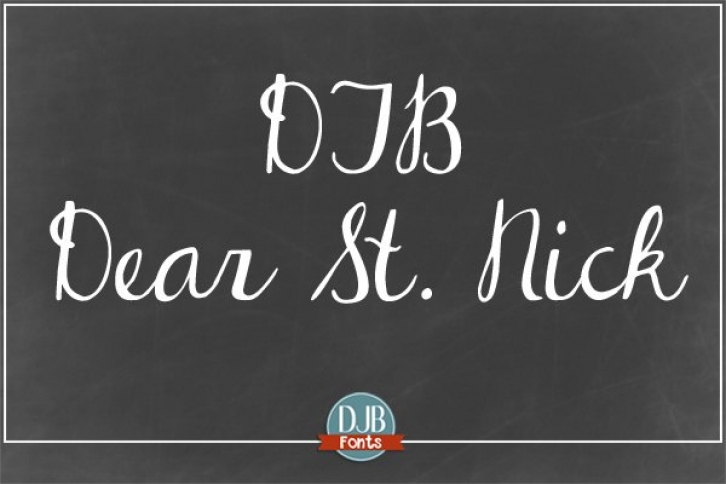
A scripty font that works well for newsletters, responses to your kids from Santa, or even as a product title or description. This font also includes European language characters.